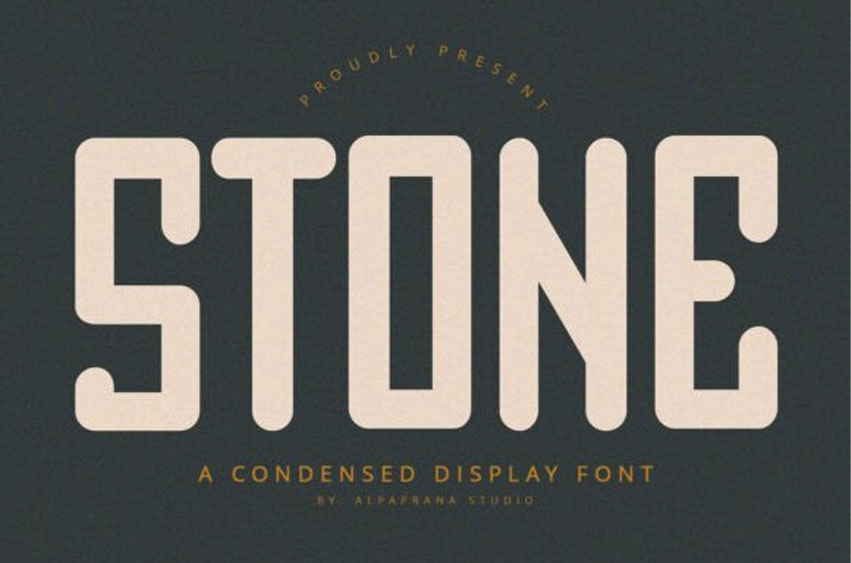
Stone Font is a condensed display font that exudes a bold, modern feel, making it a versatile choice for a wide range of creative projects. Its clean, strong letterforms are perfect for branding, logo design, custom lettering, logotypes, clothing labels, posters, magazines, packaging, shopping bags, t-shirts, book covers, photography titles, and special event materials.
Designed with both style and functionality in mind, Stone includes uppercase and lowercase characters, numerals, punctuation, multilingual accents, and a variety of ligatures and stylistic alternates, giving designers endless creative options.